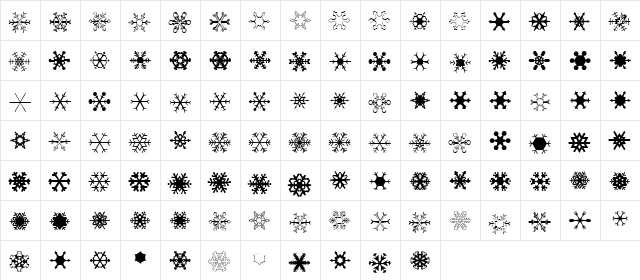
XSchneeFlakenTwo Regular
Design Context for XSchneeFlakenTwo Typeface
XSchneeFlakenTwo is a composed and adaptable typeface that performs quietly and consistently across a wide range of design contexts.